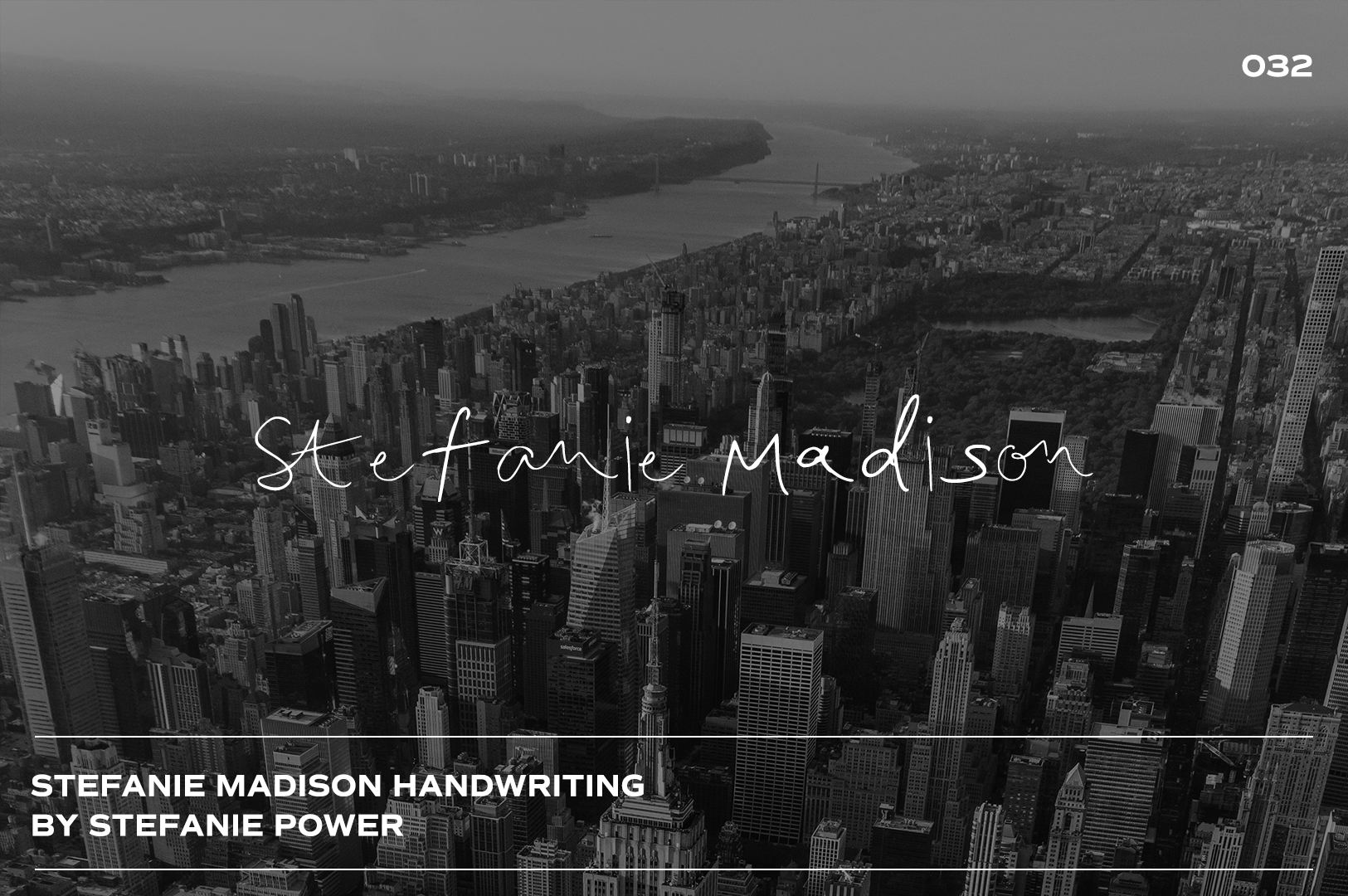
Stefanie Madison Handwriting | Font
Introducing 'Stefanie Madison' - my very own messy handwriting.
Stefanie Madison • A handwritten font containing upper & lowercase characters and a range of punctuation and numbers. As well as ligatures and character variations.